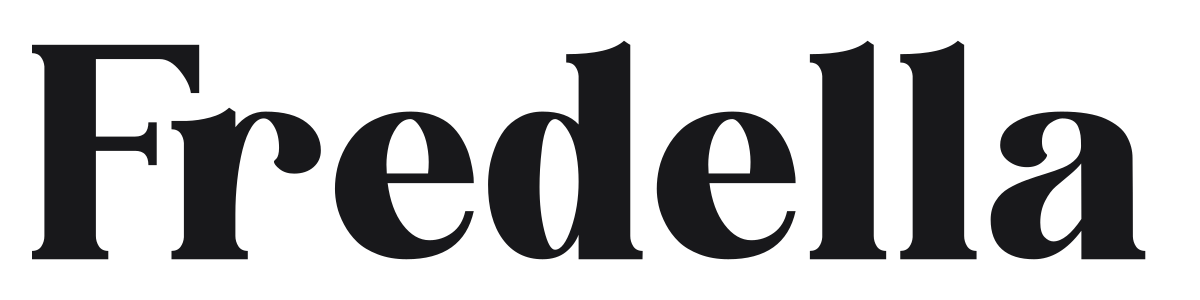
Fredella
Fredella is a bold modern serif with dramatic Didone-inspired stroke contrast, pitting heavy vertical stems against hairline-thin horizontals. The wide proportions and ball terminals give it a warm, editorial character that separates it from colder neoclassical revivals. It commands attention at headline sizes and reads clearly in luxury branding and fashion contexts.